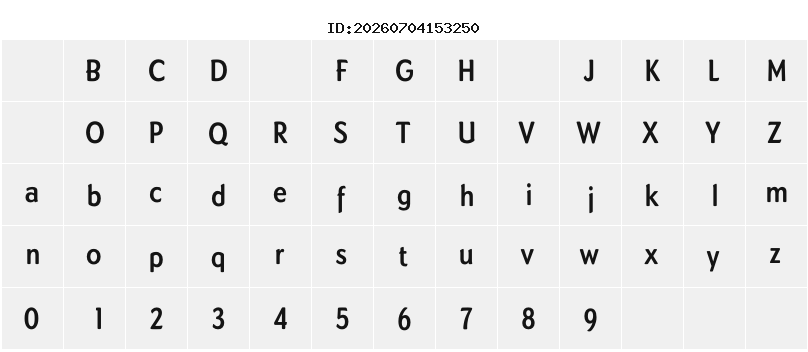
DundeeBoldCond.otf is a modern, elegant sans-serif font designed for ultimate readability and visual harmony. Perfect for branding, headlines, web design, and print materials.